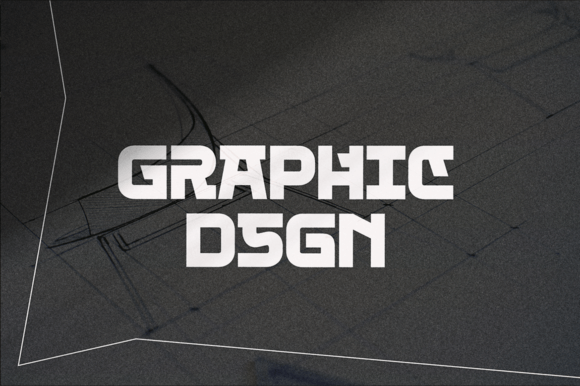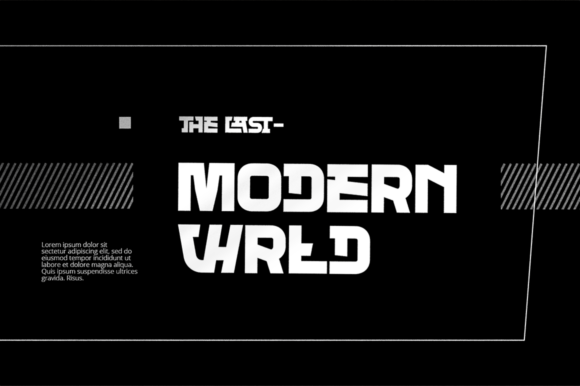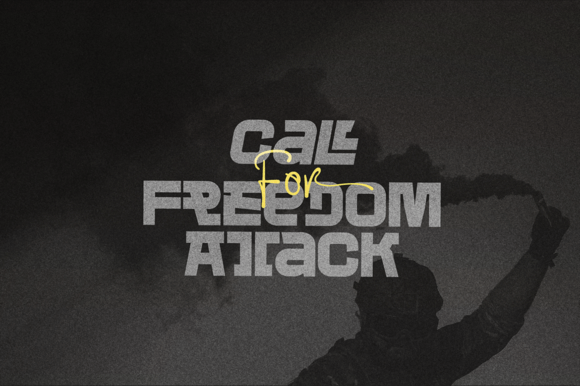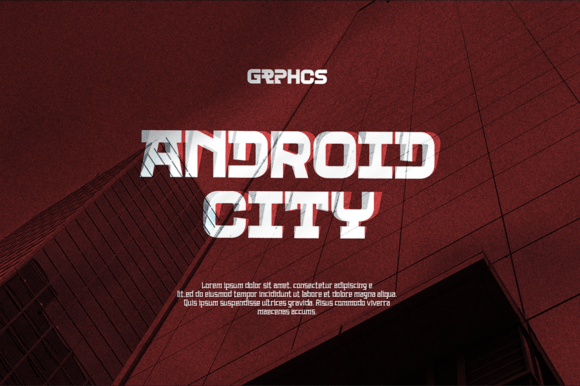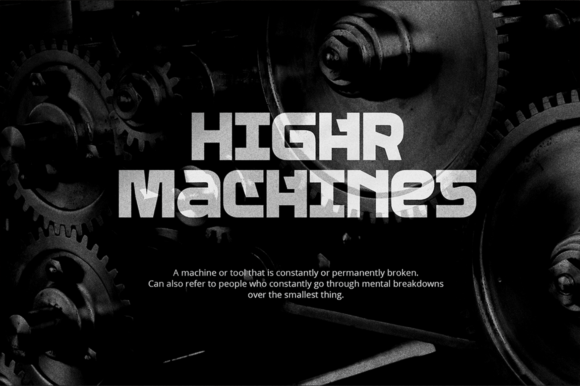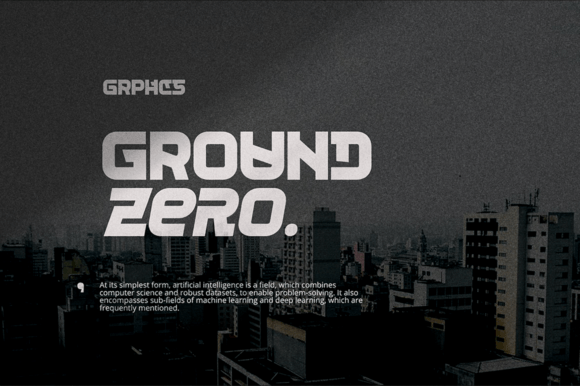
Introducing Grphcs Font: The Urban Bold Typeface for Impactful Logos
In the world of typography, a font can make or break a brand’s identity. For designers and crafters looking to create a lasting impression, the right typeface can elevate a logo from ordinary to extraordinary. This is where Grphcs comes in – a distinctive urban bold typeface designed to make a statement. With its unique blend of modern flair and edgy aesthetic, Grphcs is the perfect choice for impactful logo designs that demand attention.
The Power of Grphcs: Strong Lines and Confident Presence
Grphcs is more than just a font – it’s an attitude. Its strong lines and confident presence command attention and exude a contemporary vibe that’s perfect for brands looking to convey a sense of boldness and creativity. Whether you’re designing a logo for a startup or rebranding an established company, Grphcs has the power to transform ordinary text into striking visual elements.
What Sets Grphcs Apart
So, what makes Grphcs stand out from the crowd? Here are just a few key features that set this typeface apart:
- Urban Energy: Grphcs is designed to capture the essence of urban style, with a bold and edgy aesthetic that’s perfect for brands looking to make a statement.
- Modern Flair: With its sleek lines and contemporary vibe, Grphcs brings a touch of modernity to any logo design.
- Versatility: Whether you’re designing a logo, headline, or body text, Grphcs is versatile enough to make a lasting impression in any context.
- Uniqueness: In a sea of generic fonts, Grphcs stands out as a truly unique and distinctive typeface that’s sure to grab attention.
Why Choose Grphcs for Your Logo Design?
For designers and crafters looking to create impactful logos, Grphcs offers a range of benefits that make it the perfect choice. Here are just a few reasons why:
- Make a Statement: With Grphcs, you can create logos that demand attention and make a lasting impression on your target audience.
- Convey Boldness and Creativity: Grphcs is designed to convey a sense of boldness and creativity, making it perfect for brands that want to stand out from the crowd.
- Elevate Your Brand: By using Grphcs in your logo design, you can elevate your brand’s identity and create a lasting impression that resonates with your target audience.
How to Use Grphcs in Your Design Projects
- Experiment with Different Sizes: Grphcs looks great in large headlines or smaller body text – experiment with different sizes to find the perfect fit for your design.
- Play with Color: Grphcs is versatile enough to work with a range of colors – try pairing it with bold brights or subtle pastels to create a unique look.
- Mix and Match: Don’t be afraid to mix and match Grphcs with other fonts to create a unique visual identity.
In conclusion, Grphcs is a game-changing font that’s perfect for designers and crafters looking to create impactful logos. With its unique blend of modern flair and edgy aesthetic, Grphcs has the power to transform ordinary text into striking visual elements. Whether you’re designing a logo for a startup or rebranding an established company, Grphcs is the perfect choice for brands looking to convey a sense of boldness and creativity. So why wait? Embrace the urban energy of Grphcs and make your logos stand out with unparalleled style.